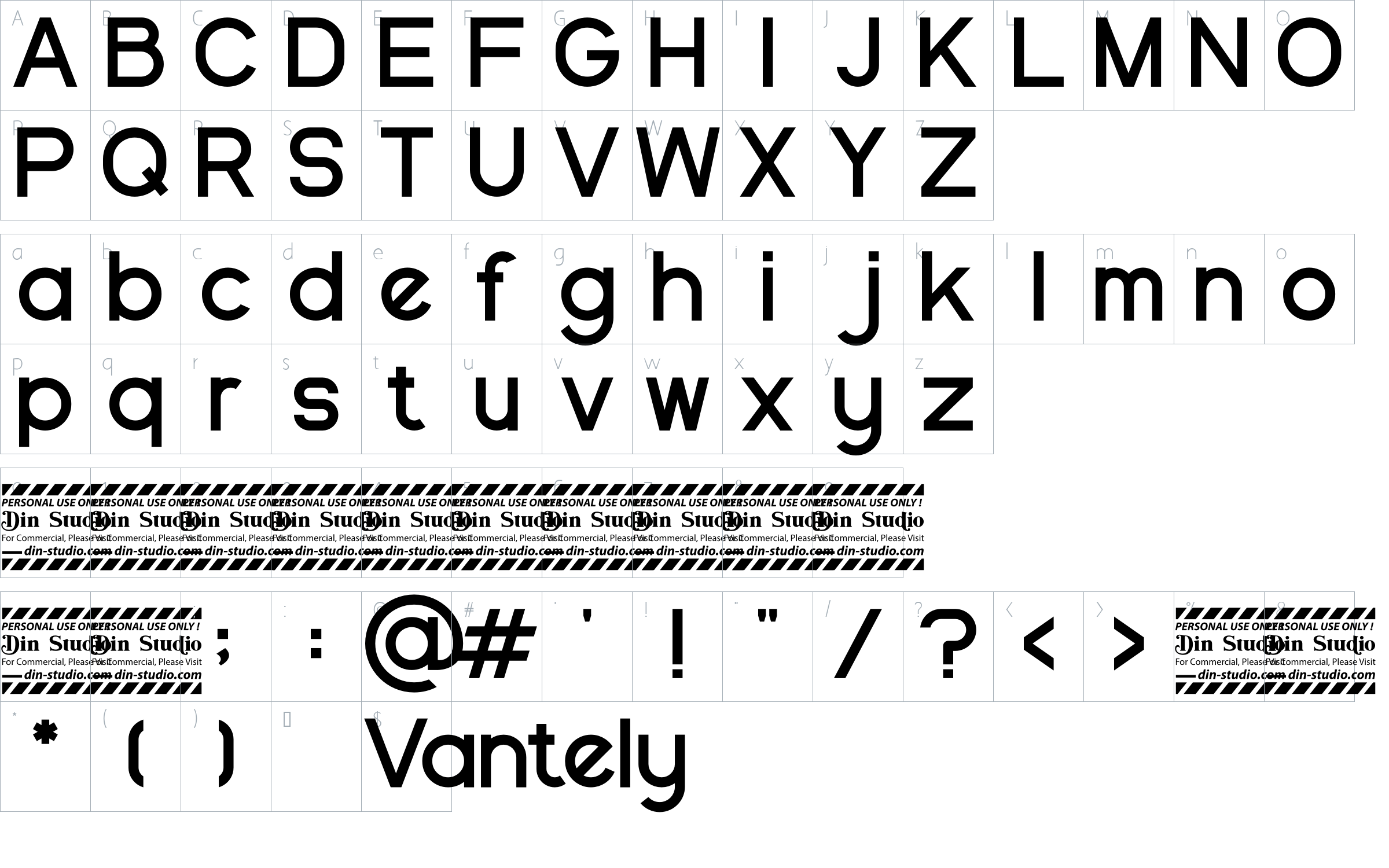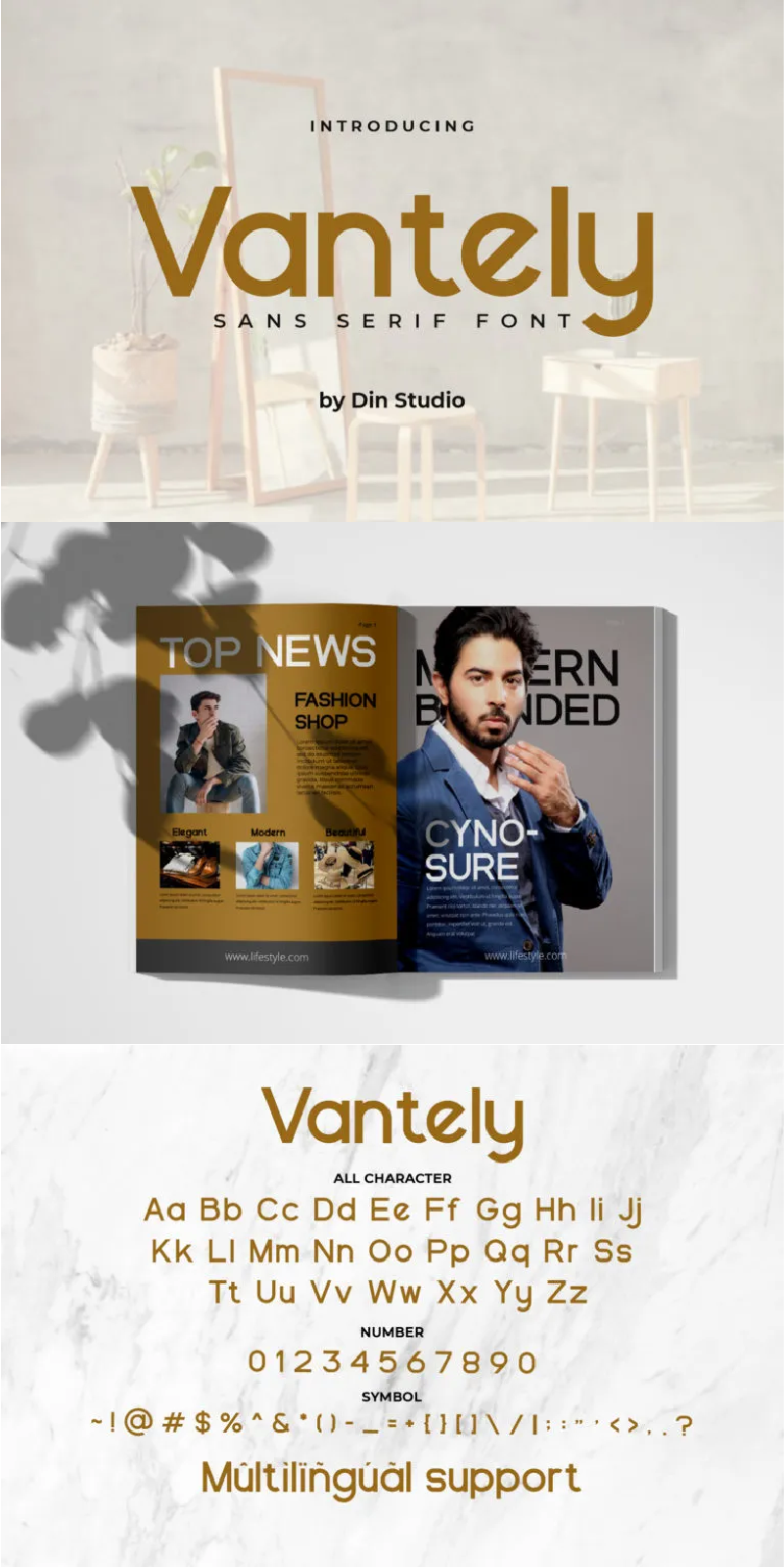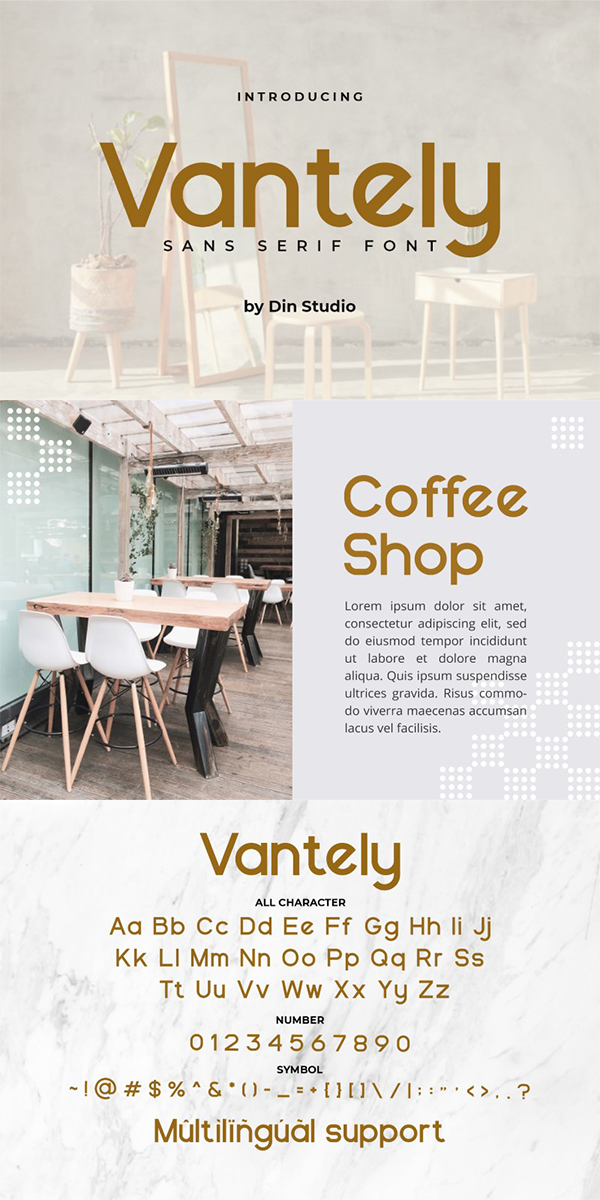
Vantely Font
About Vantely
Vantely is a modern sans serif font made for any professional project brandings. It is perfect for printing, cards, packaging, invitations, merchandise, branding and quotes. Every letter has a unique and beautiful touch. See the previews above to get some inspiration on how you can use them. Happy designing!